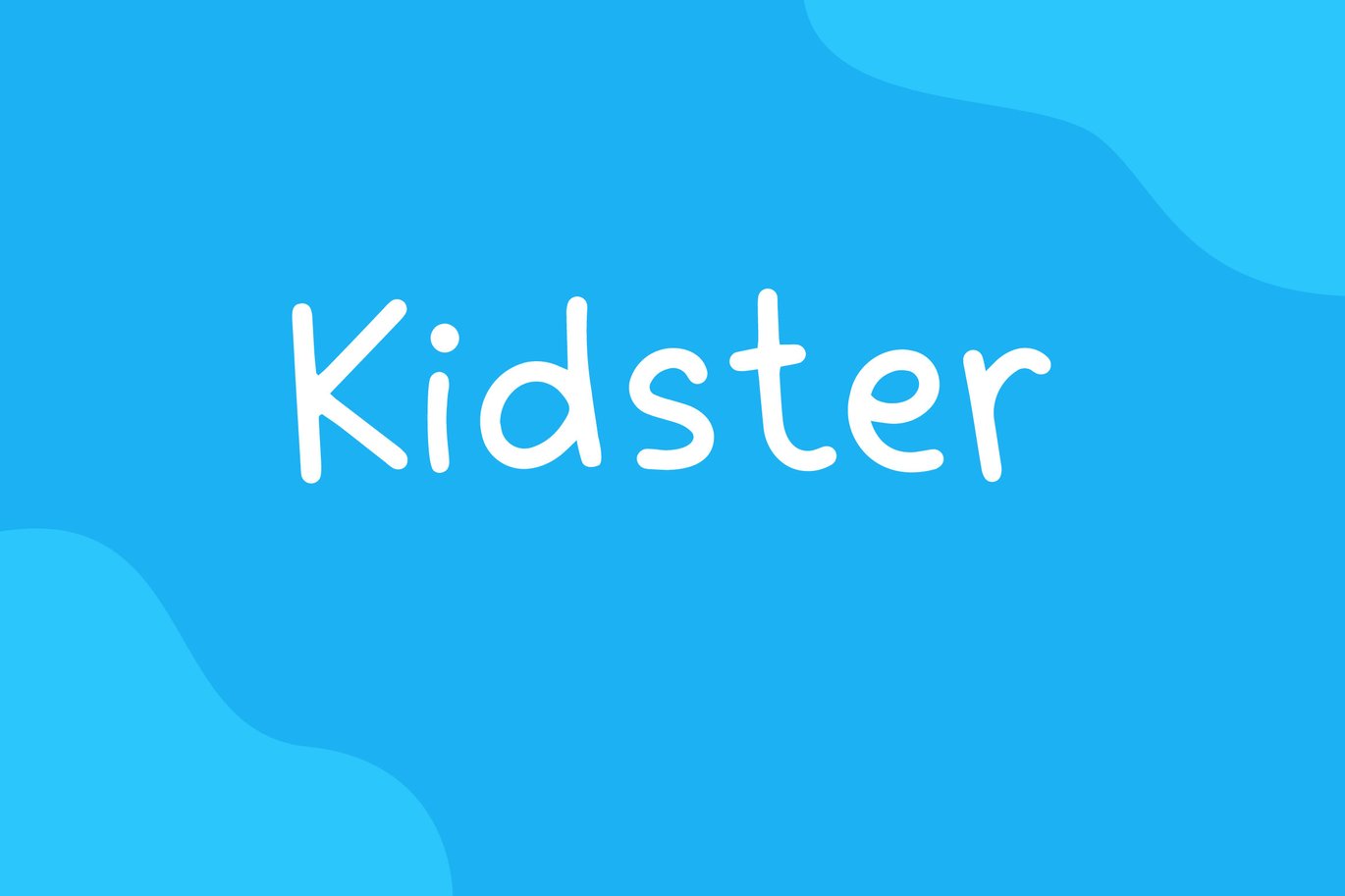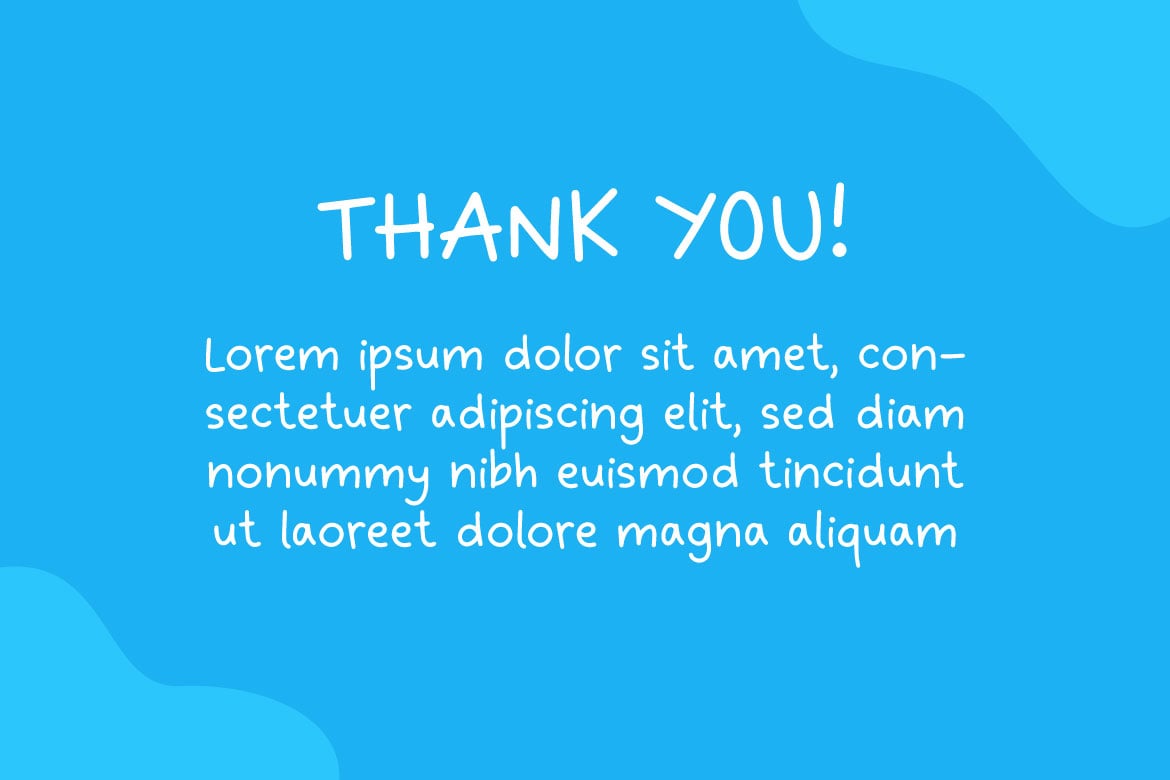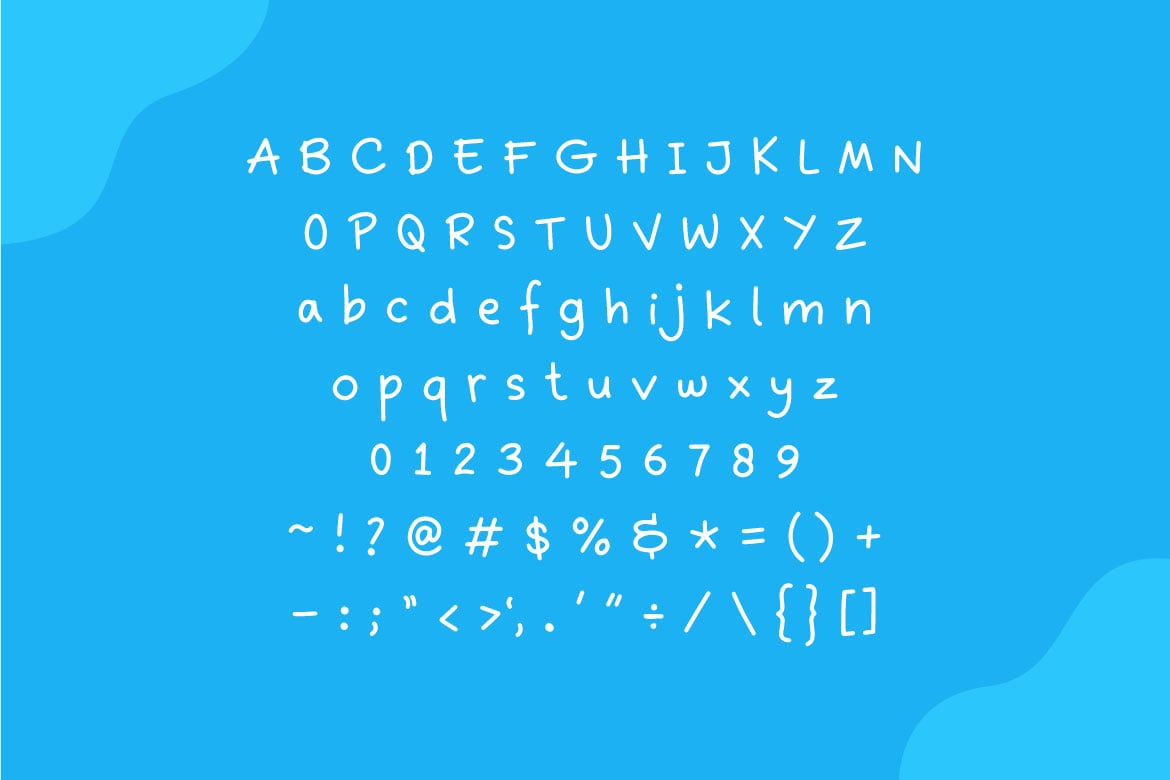
Kidster – Comic font
If you are looking for a comic display font with hand made looking, meet KIDSTER
Kidster is perfect for any works, such as your comic, poster, card, book title, headline of news, banner, flyer, stationery and many more. It also can be used in Any scale work.